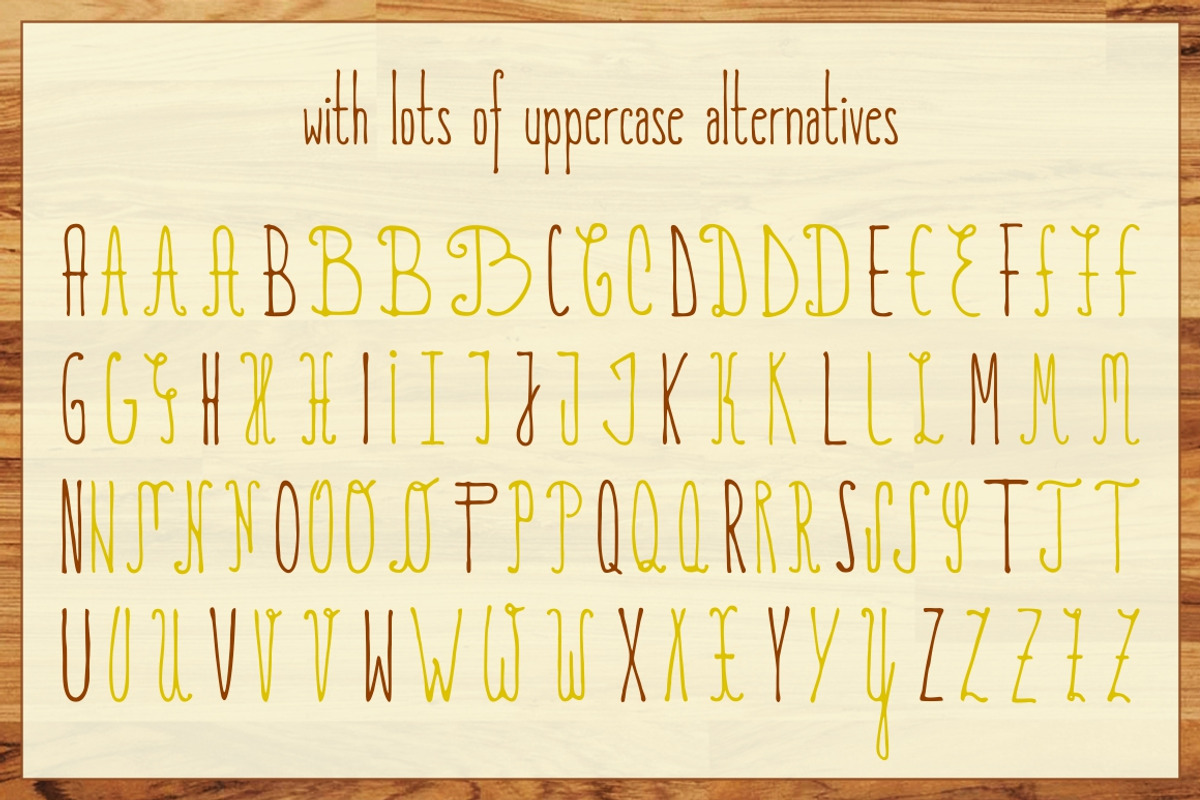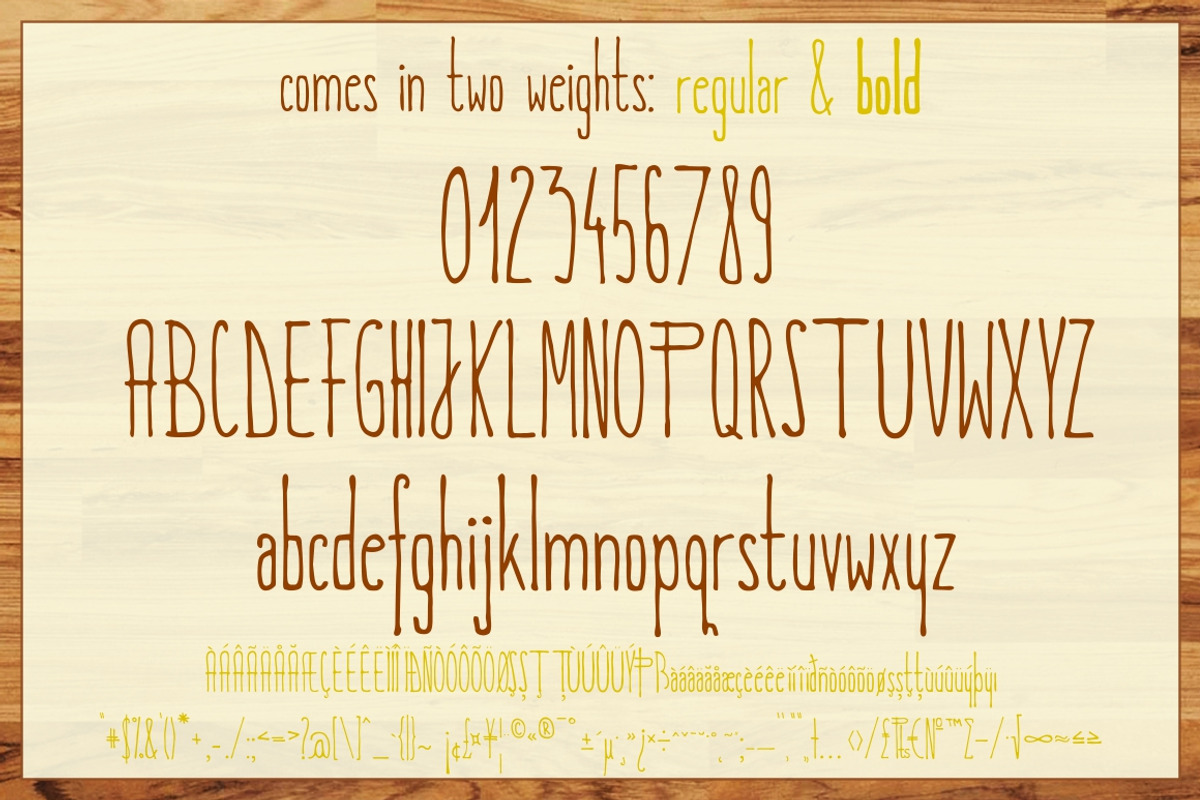
Olive Oil Typeface - 50% intro sale by Monogram is a font selected for branding, posters, packaging, typography.
- It features almost 300 glyphs, supporting most common languages, but also a wide range of uppercase alternatives to give that special look y
Why Olive Oil Typeface - 50% intro sale is worth a look
Olive Oil Typeface - 50% intro sale by Monogram fits naturally into Branding, posters, packaging, typography.